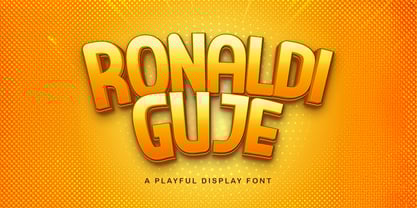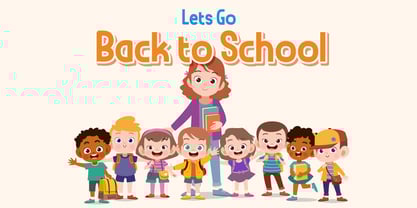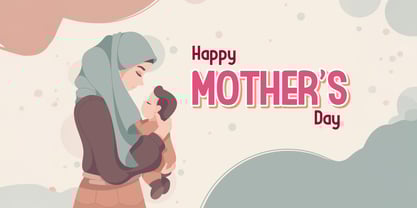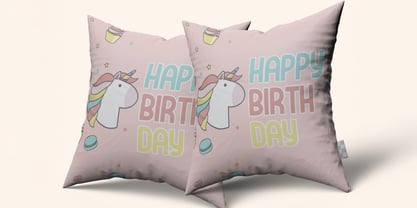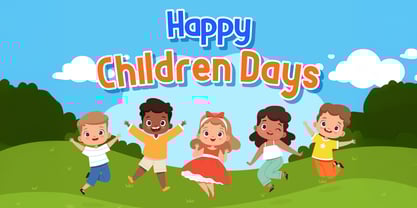
Ronaldi Guje
by Stringlabs Creative Studio
The Ronaldi Guje Font Family was designed by Virgiawan Listanto and published by Stringlabs Creative Studio. Ronaldi Guje contains 1 styles. More about this family
RONALDI GUJE is a sleek and refined display sans font that brings bold clarity and modern elegance to your design projects. Crafted with sharp lines and a strong typographic presence, it strikes the perfect balance between professionalism and personality.
Designers: Virgiawan Listanto
Foundry: Stringlabs Creative Studio